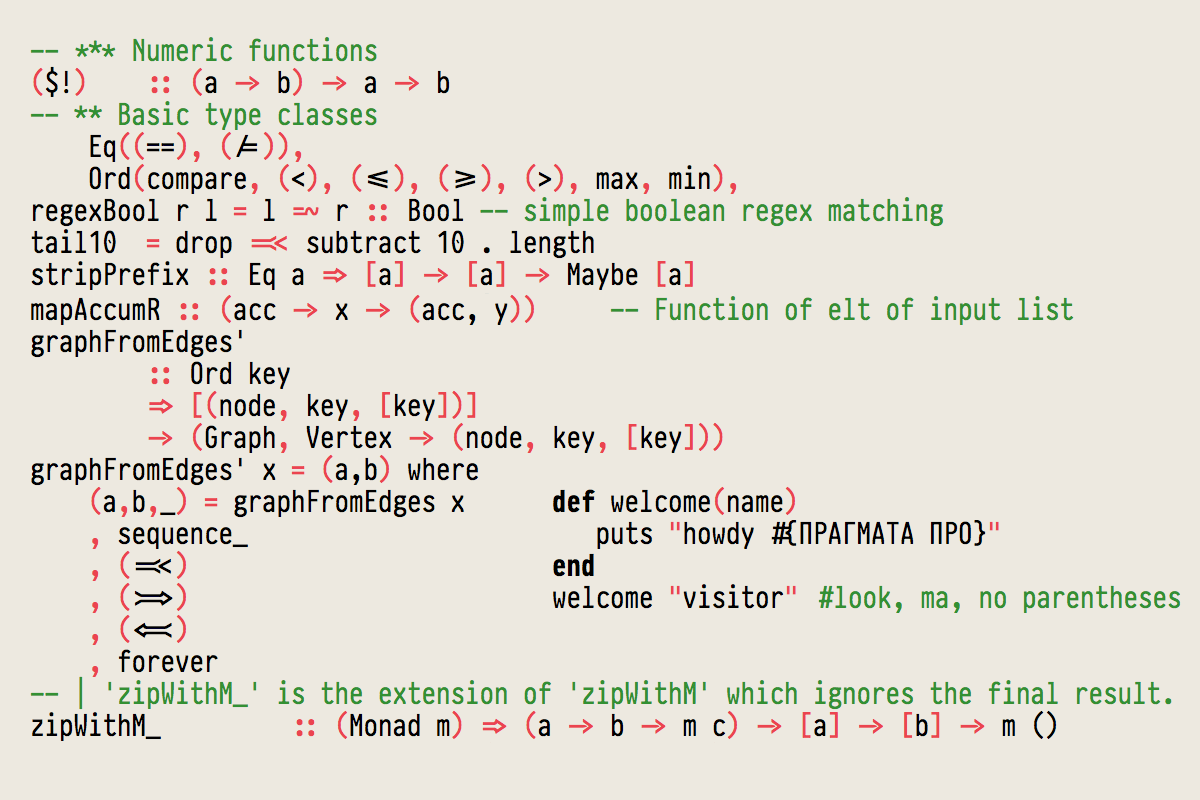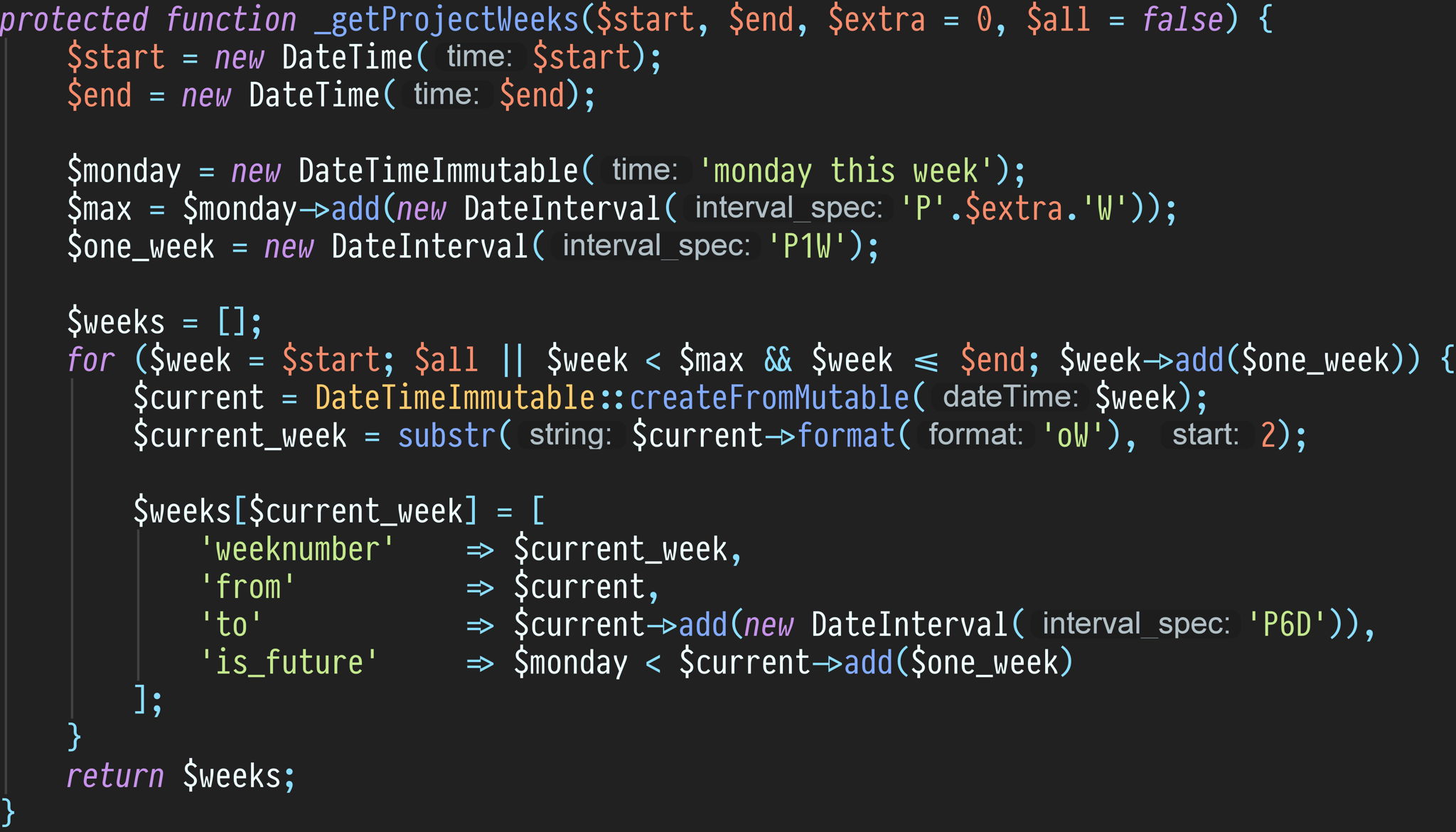
Pro 18000+ glyphs
Not only does Pragmata Pro have all the ligatures you might want, but box drawing and math symbols are available as well. Might be the pretty close to a Unicode-complete font.
Pro Comprehensive Unicode character support
PragmataPro, more so than most fonts (even non-monospace, professional fonts etc.), supports a crazy-wide range of the Unicode standard; many of those symbols, letters, and special characters are quite useful in writing and programming (e.g. PragmataPro + Vim's conceal feature makes writing LaTeX pretty beautiful).
PragmataPro
When it comes to software development, choosing the right font can make a significant difference to your productivity and wellbeing. PragmataPro is a condensed monospaced font that is optimised for retina screens and designed to be the ideal font for coding, maths, and engineering. It is a font that will gi...
Very clear and legiblePragmataPro
Use of space is the best I've ever seen. Looking at other fonts now the balance in use of space between characters seems imbalanced and off. With PragmataPro, it feels as if someone spent hours and hours hand tweaking how each character balances with all others. It's hard to explain but needless to s...
Narrow width saves a lot of spacePro
Very clear and legiblePro
Pro Most complete
The font has the most glyphs of any programming fonts (more than 7.000).